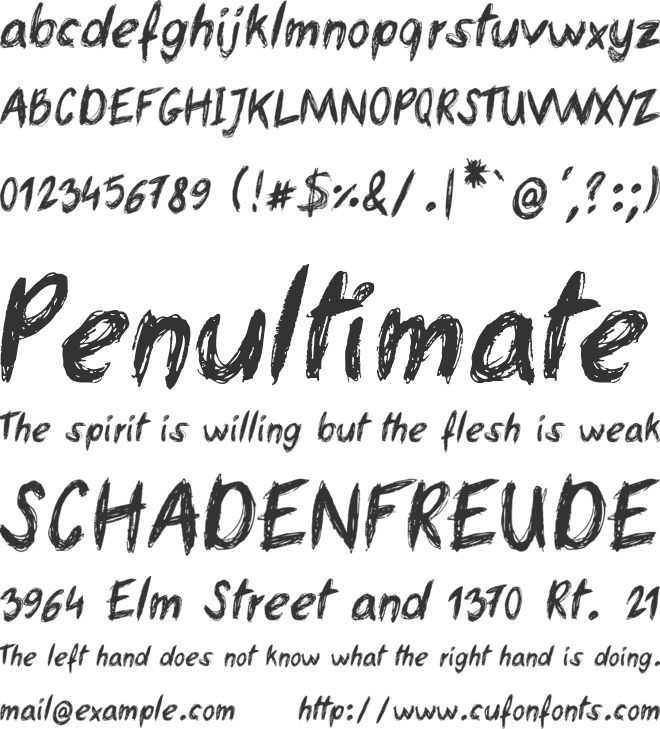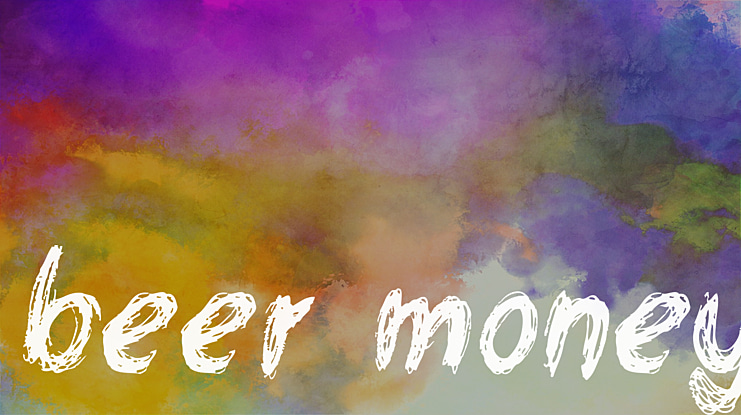
beer money Font
Roland Huse
BEER MONEY is a hand drawn (scribble) font with language extentions and some
funny features
Latin1
Latin2 Eastern European
Cyrillic
Turkish
Windows Baltic
and correction signs in the place of "greater" and "less" , try it! :)
typing glyph "greater" 1 time makes a cross over back to the previously written small word, 2 or 3 times makes it longer according to the length of the word you want to correct in the traditional way
typing glyph "less" places a scribble, 2 times ">" makes a pipe.
typing the word "nummer" makes a No. sign.